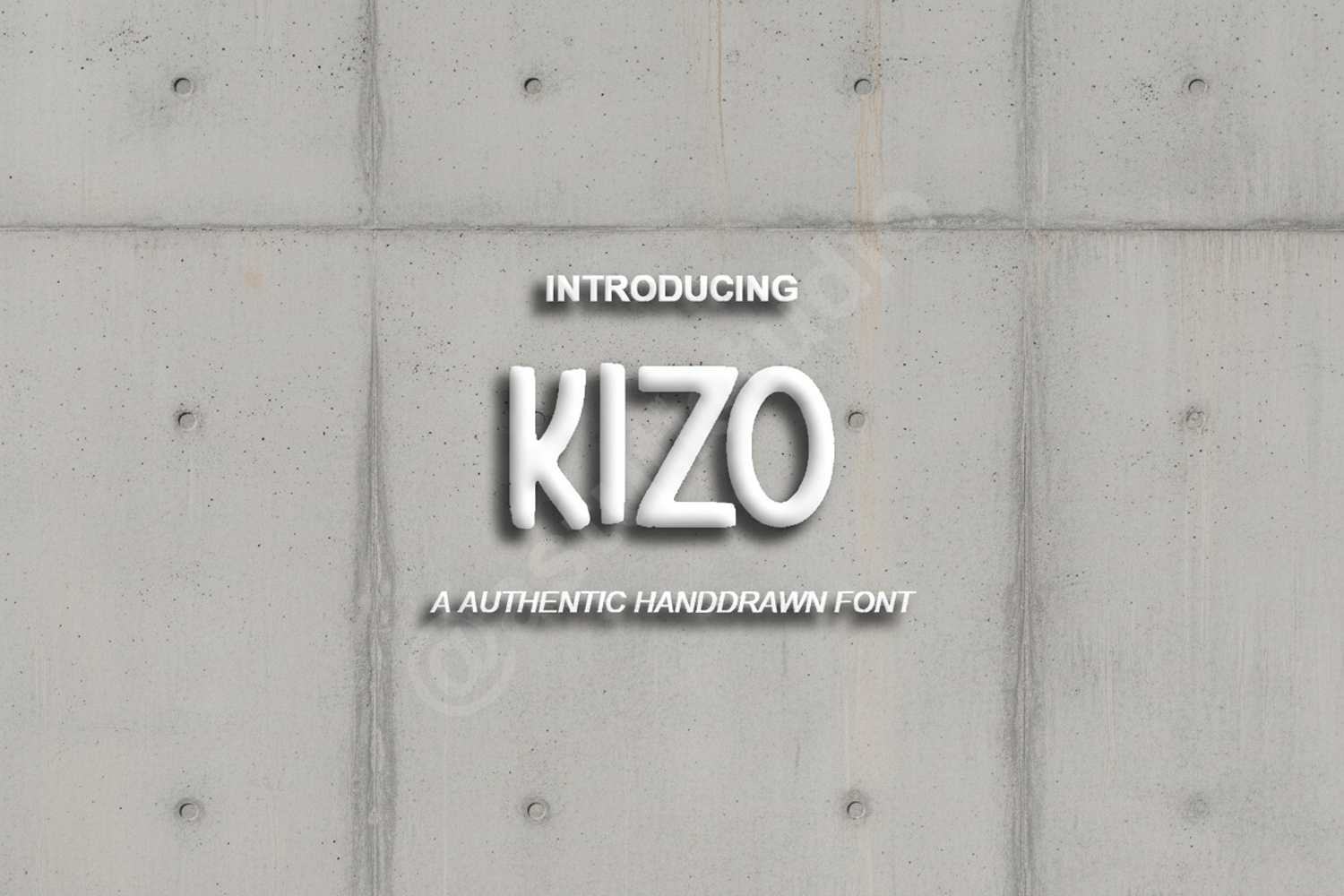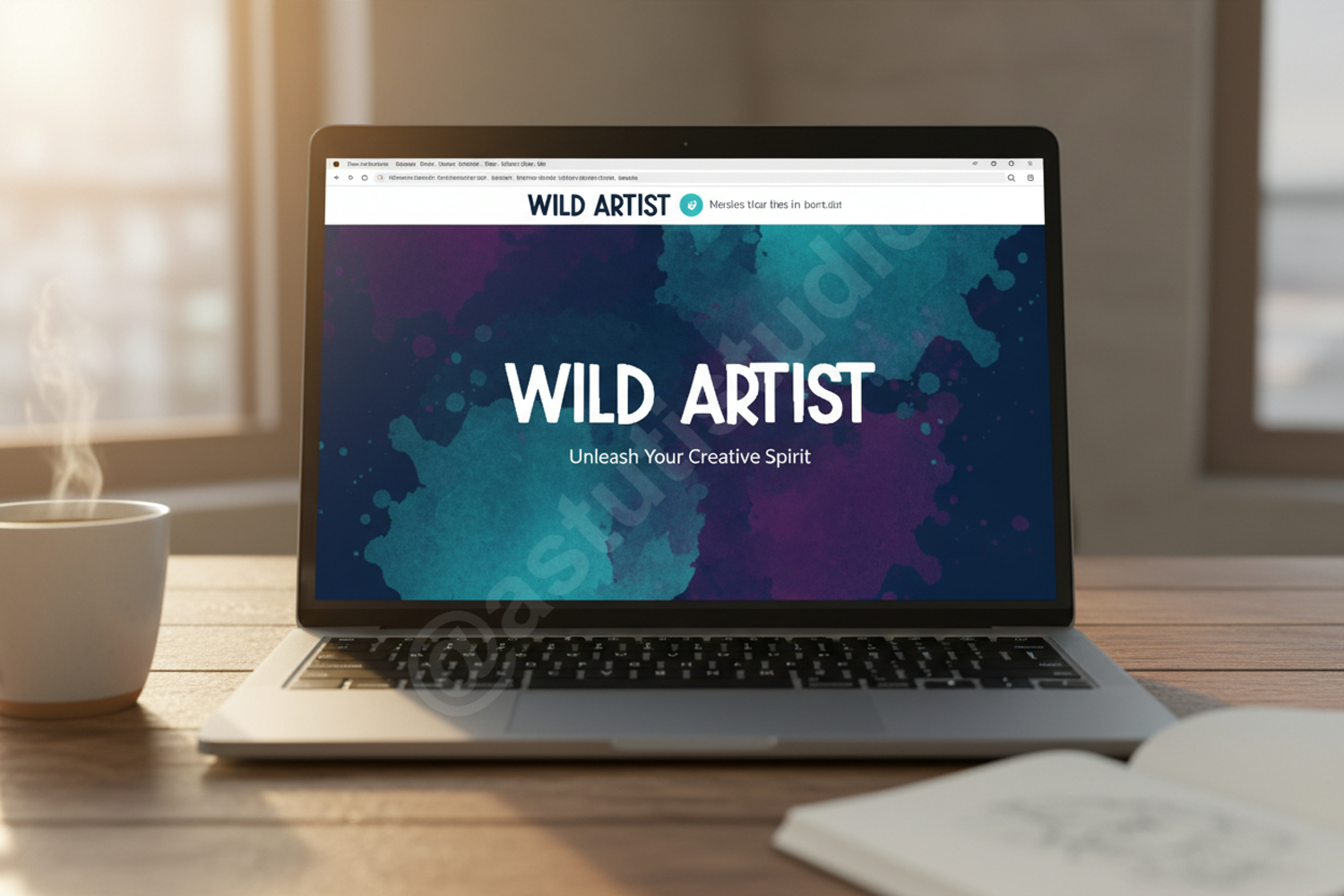
Kizo - Sophisticated Modern Sans Serif
Kizo
Kizo is a premium sans serif typeface that bridges the gap between geometric precision and contemporary elegance. Designed for designers who demand versatility without compromising on style, Kizo offers clean lines and balanced proportions that make every character stand out. Whether you are building a high-end brand identity or a minimalist website, Kizo provides the professional edge your projects deserve.
- Full set of uppercase and lowercase letters
- Numbers, punctuation, and symbols
- Comprehensive multilingual support
- Branding and Logo Design: Create a memorable and professional visual identity.
- Editorial Layouts: Perfect for high-fashion magazines, lookbooks, and corporate reports.
- Digital Marketing: Enhance your social media graphics and website headers with clean typography.
- Packaging: Add a touch of modern luxury to product labels and boxes.
- Signage: Ensure maximum readability for wayfinding and environmental graphics.